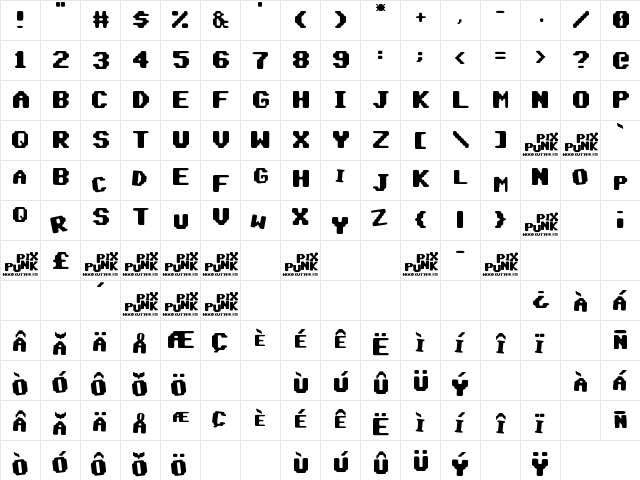
pix punk Regular
Design Context for pix punk Typeface
pix punk is a composed and adaptable typeface that performs quietly and consistently across a wide range of design contexts.